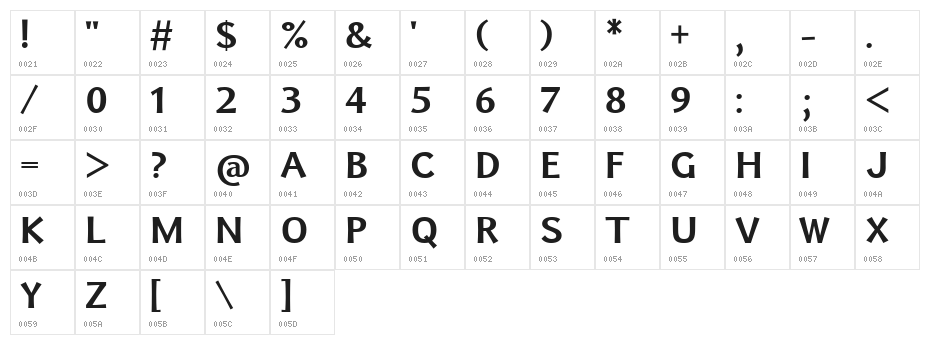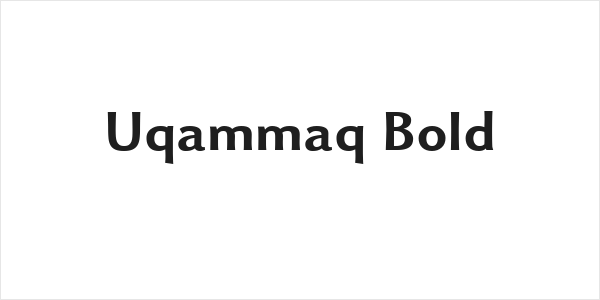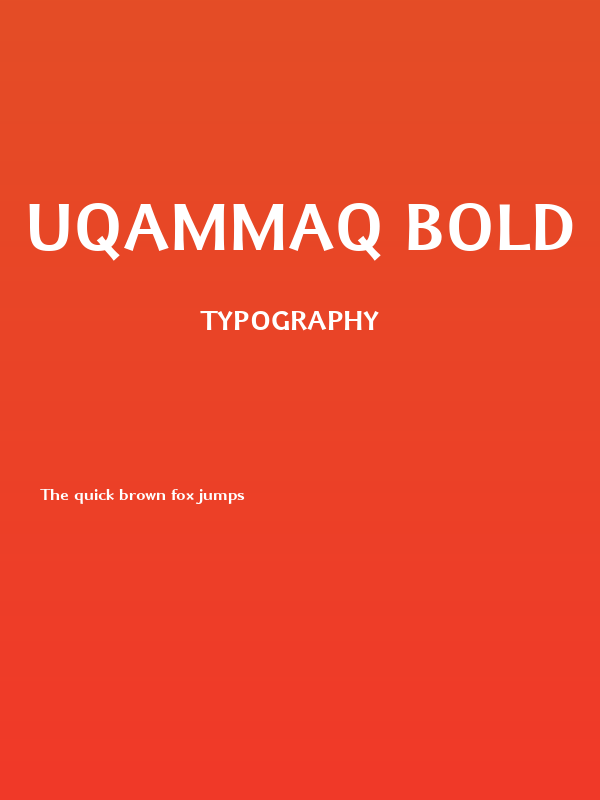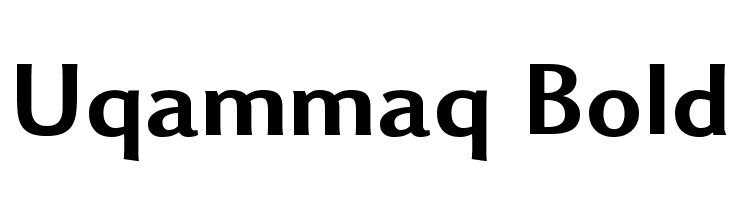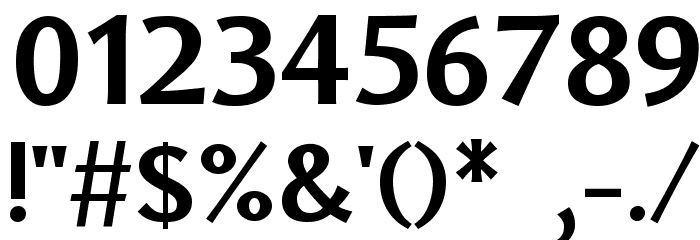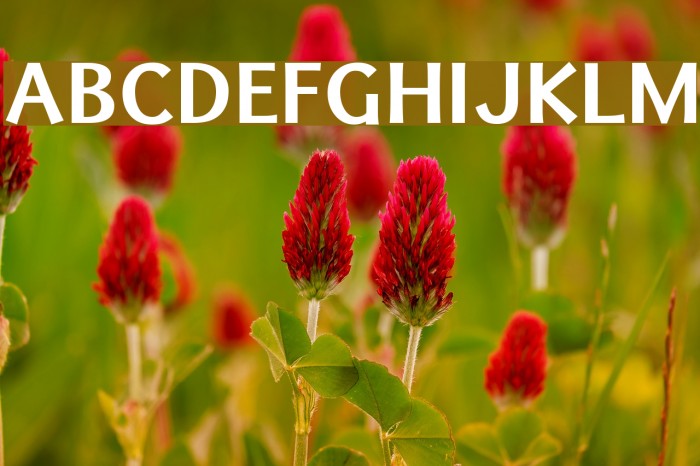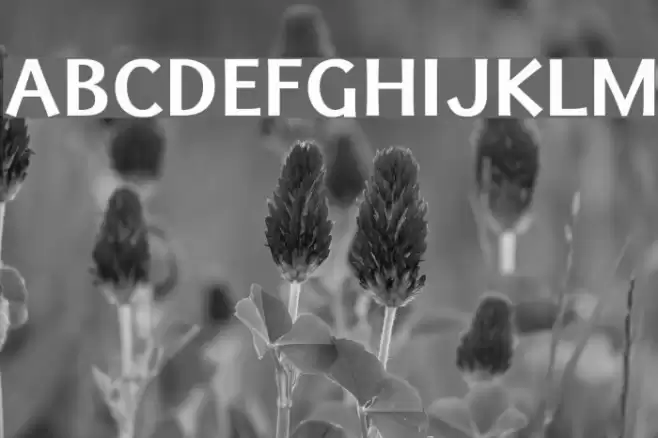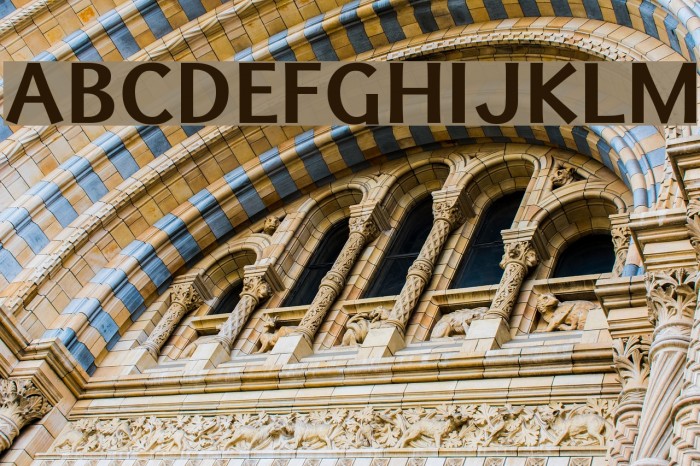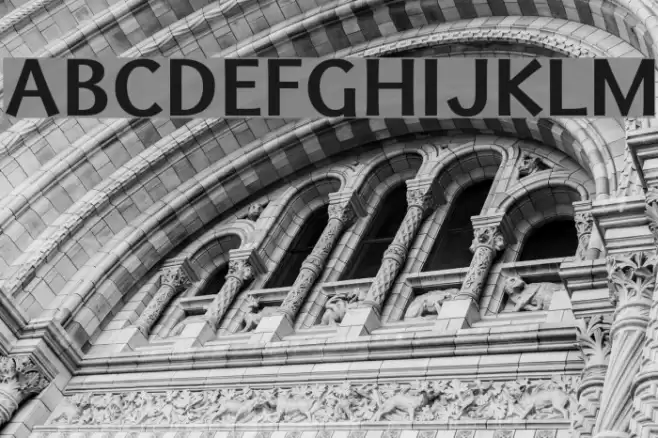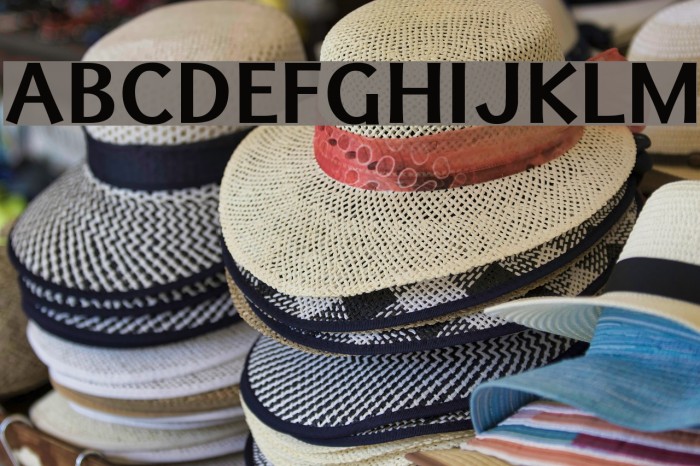
Uqammaq Bold Font
Uqammaq Bold Description
This font features a bold and assertive style with clean, sharp lines and a modern aesthetic. The uppercase and lowercase letters are well-proportioned, offering a strong visual impact. The numerals are clear and distinct, making them easily readable. Special characters are designed with precision, maintaining the overall boldness of the font. The font's structure is consistent, with a slight emphasis on vertical strokes, giving it a robust and stable appearance. It is versatile enough to be used in various contexts, from digital to print media.
| Use Case | Headlines, Logos, Branding |
| Proposed Projects | Ideal for branding, headlines, posters, and digital media where a strong, modern presence is needed. |